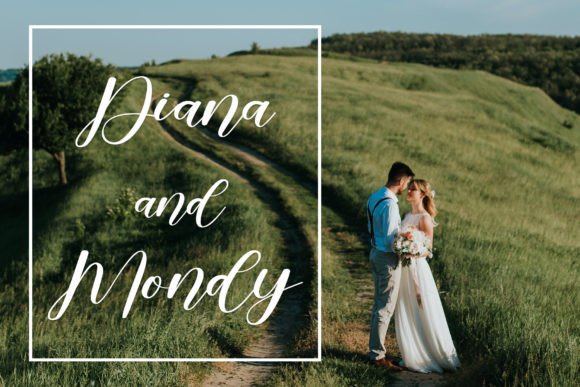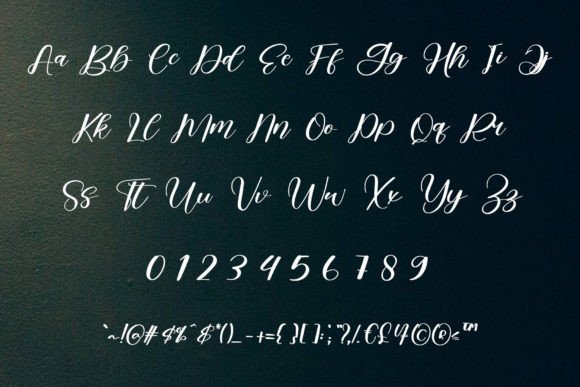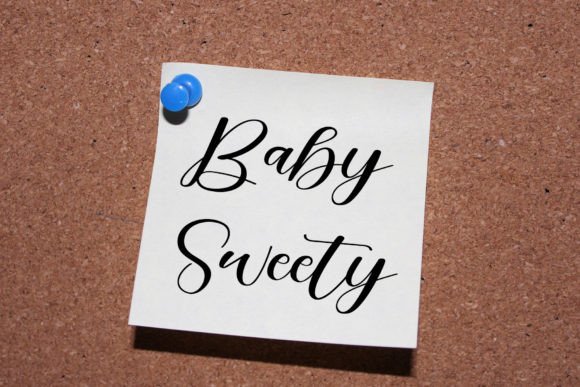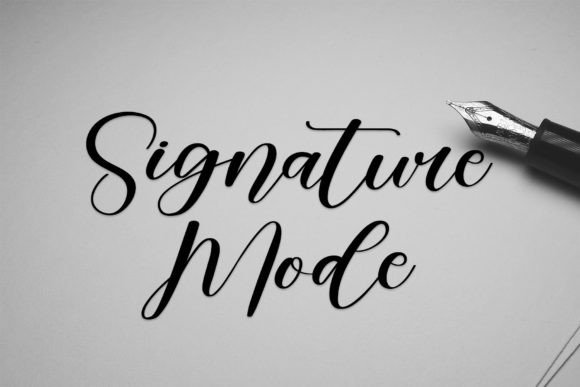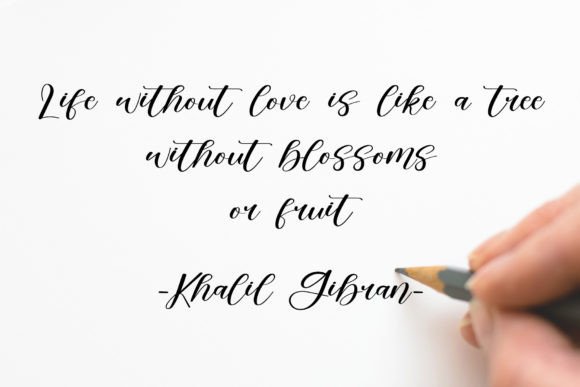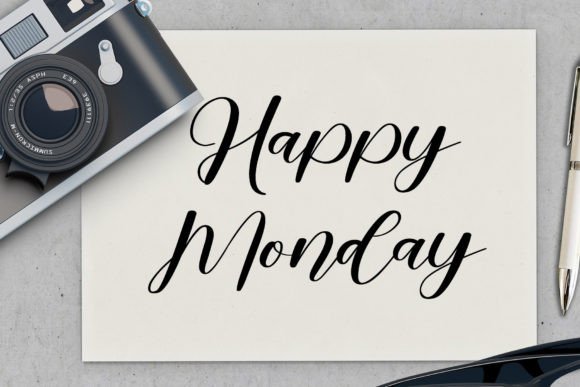
Introducing Greentea Font: Elevate Your Designs with Elegance
Are you on the hunt for a font that exudes elegance and sophistication? Look no further than Greentea Font, a stunning handwritten font that is sure to capture your heart. With its unique blend of neatness and beauty, Greentea is the perfect addition to your design arsenal. In this article, we’ll dive into the world of Greentea Font, exploring its features, benefits, and uses, as well as provide tips on how to make the most of this incredible font.
The Story Behind Greentea Font
Greentea Font is a carefully crafted handwritten font that boasts an elegant touch, making it ideal for a wide range of projects. Its creator had a vision of designing a font that would be both timeless and distinct, and we believe they’ve succeeded. The result is a font that is not only beautiful but also incredibly versatile, suitable for use in various design applications, from digital projects to print materials.
Key Features of Greentea Font
- Neat and Beautiful: Greentea Font is characterized by its neat and beautiful handwritten style, making it perfect for designs that require a touch of elegance.
- Elegant Touch: The font’s elegant touch sets it apart from other handwritten fonts, giving it a sophisticated and refined feel.
- Distinct and Timeless Style: Greentea Font’s unique style is both distinct and timeless, ensuring that your designs will stand out and remain relevant for years to come.
- Versatile: This font is incredibly versatile, suitable for use in a wide range of projects, from digital designs to print materials.
Benefits of Using Greentea Font
So, why choose Greentea Font for your designs? Here are just a few benefits of using this incredible font:
- Adds Elegance to Your Designs: Greentea Font’s elegant style instantly elevates your designs, adding a touch of sophistication and refinement.
- Enhances Readability: The font’s neat and clear style ensures that your text is easy to read, making it perfect for designs that require a lot of text.
- Stand Out from the Crowd: With its unique and timeless style, Greentea Font helps your designs stand out from the crowd, grabbing the attention of your audience.
- Easy to Use: Greentea Font is incredibly easy to use, compatible with various design software and platforms.
Uses of Greentea Font
Greentea Font is an incredibly versatile font, suitable for use in a wide range of projects, including:
- Digital Designs: Use Greentea Font in your digital designs, such as website headers, social media graphics, and email marketing campaigns.
- Print Materials: The font is perfect for print materials, including brochures, flyers, posters, and business cards.
- Branding and Identity: Greentea Font can be used to create stunning brand identities, including logos, letterheads, and packaging.
- Crafting and DIY Projects: Crafters and DIY enthusiasts can use Greentea Font to add a personal touch to their projects, such as handmade cards, scrapbooking, and journaling.
Tips for Using Greentea Font
To make the most of Greentea Font, here are a few tips to keep in mind:
- Experiment with Different Sizes: Greentea Font looks great in various sizes, so don’t be afraid to experiment to find the perfect size for your design.
- Pair with Other Fonts: The font pairs well with other fonts, so try combining it with different fonts to create a unique look.
- Use it Sparingly: While Greentea Font is incredibly beautiful, it’s best to use it sparingly to avoid overwhelming your design.
In conclusion, Greentea Font is a stunning handwritten font that is sure to elevate your designs. With its elegant touch, neat and beautiful style, and timeless appeal, it’s the perfect addition to your design arsenal. Whether you’re a designer, crafter, or DIY enthusiast, Greentea Font is a must-have font that will help you create spectacular designs. So why wait? Fall in love with Greentea Font and take your designs to the next level!